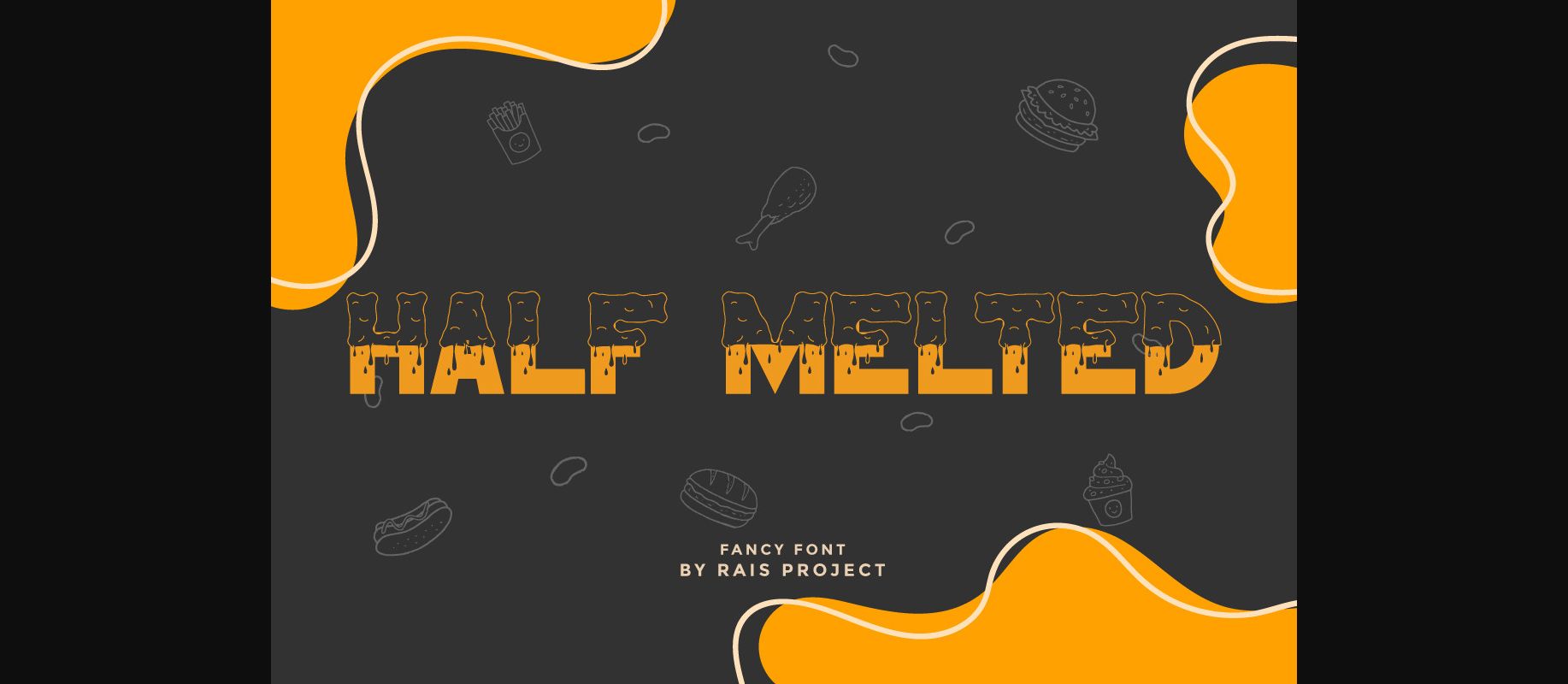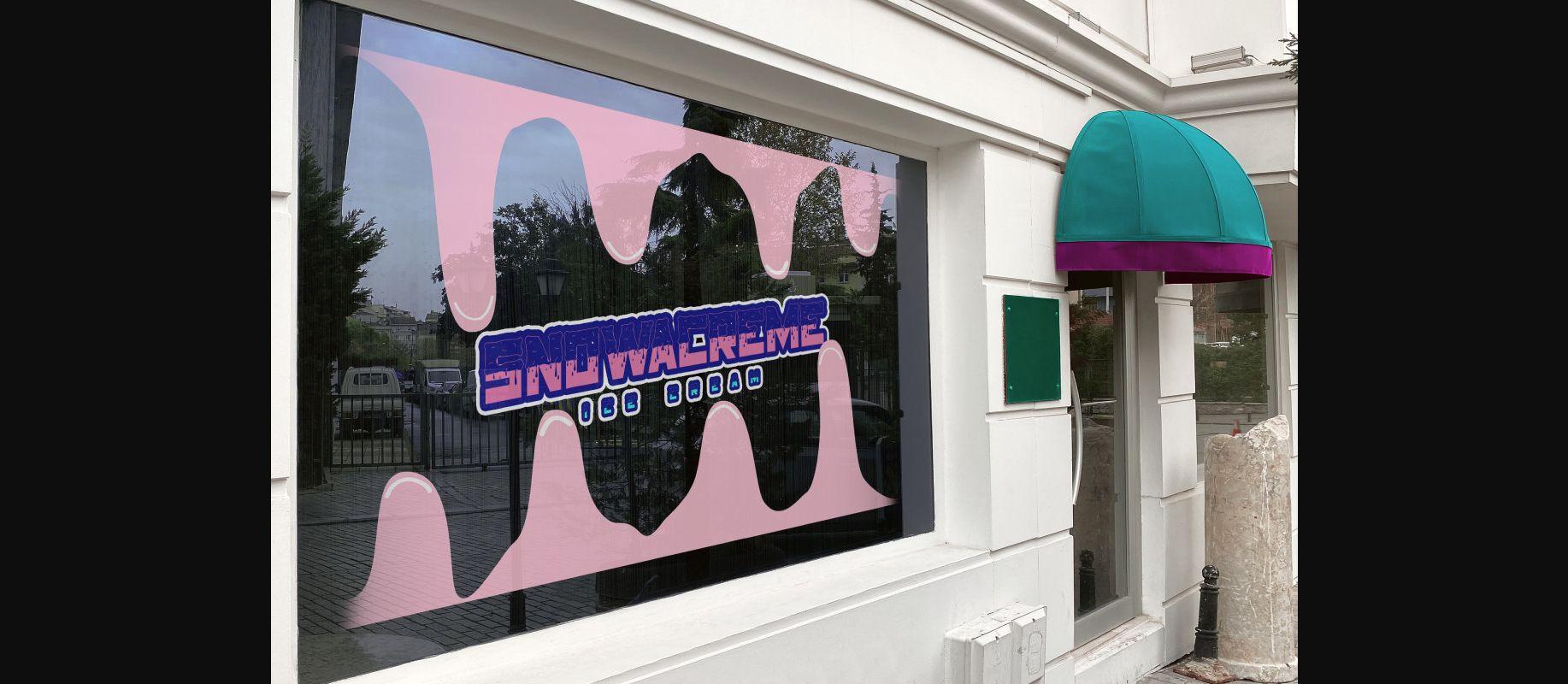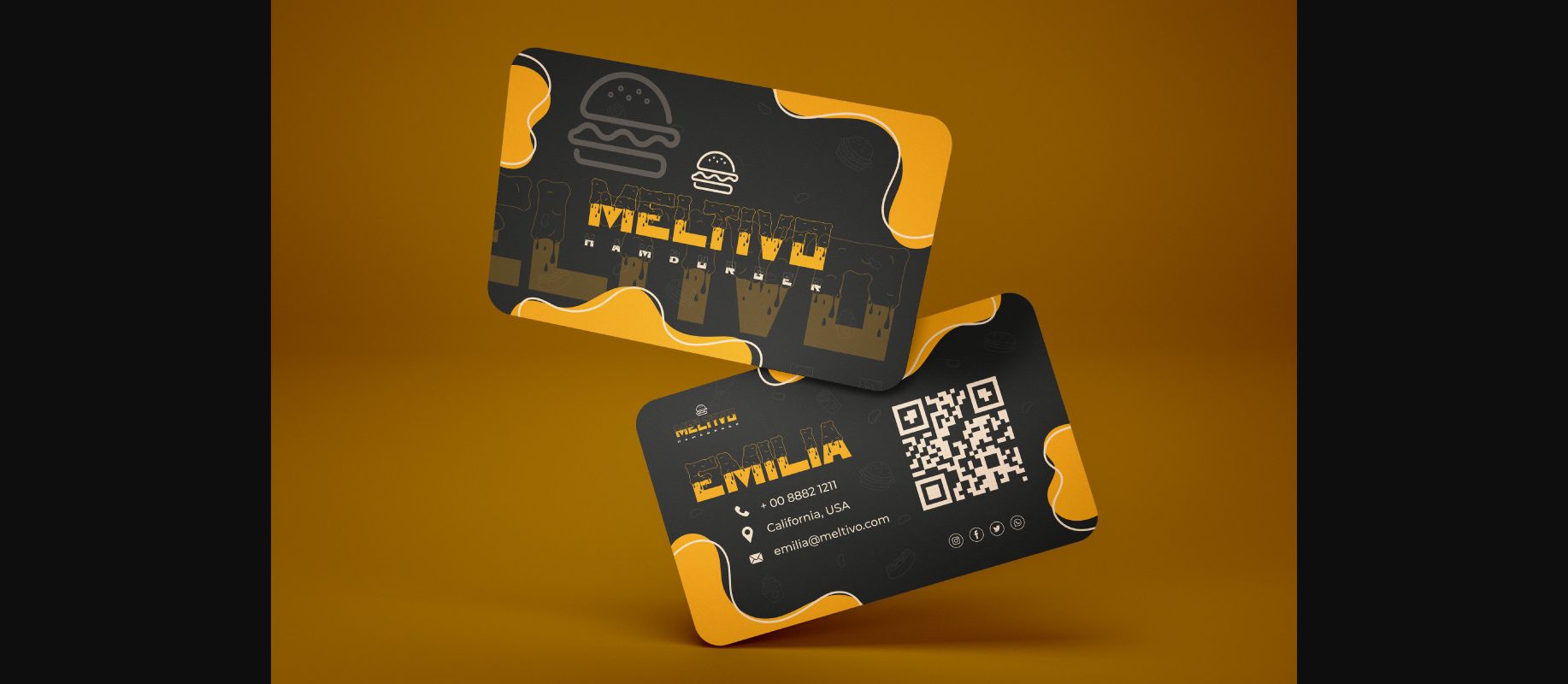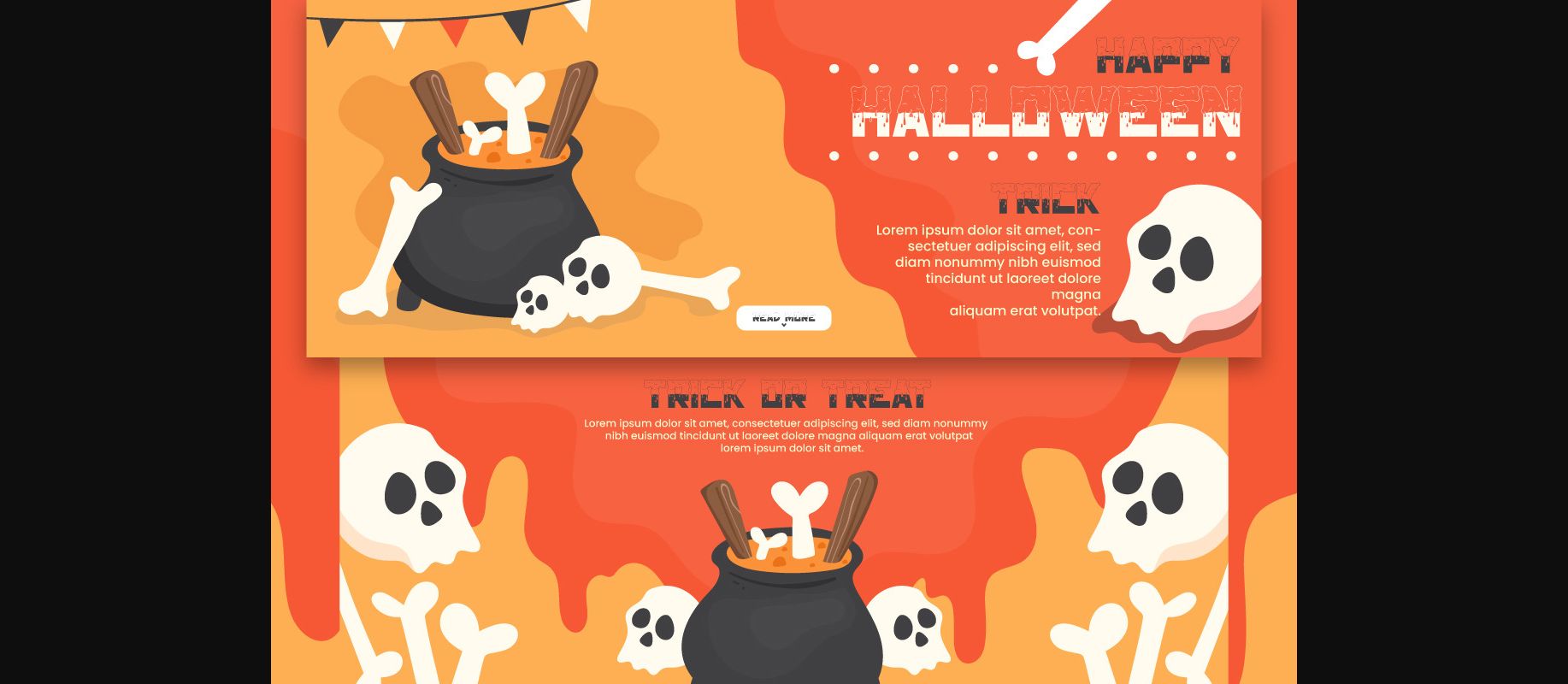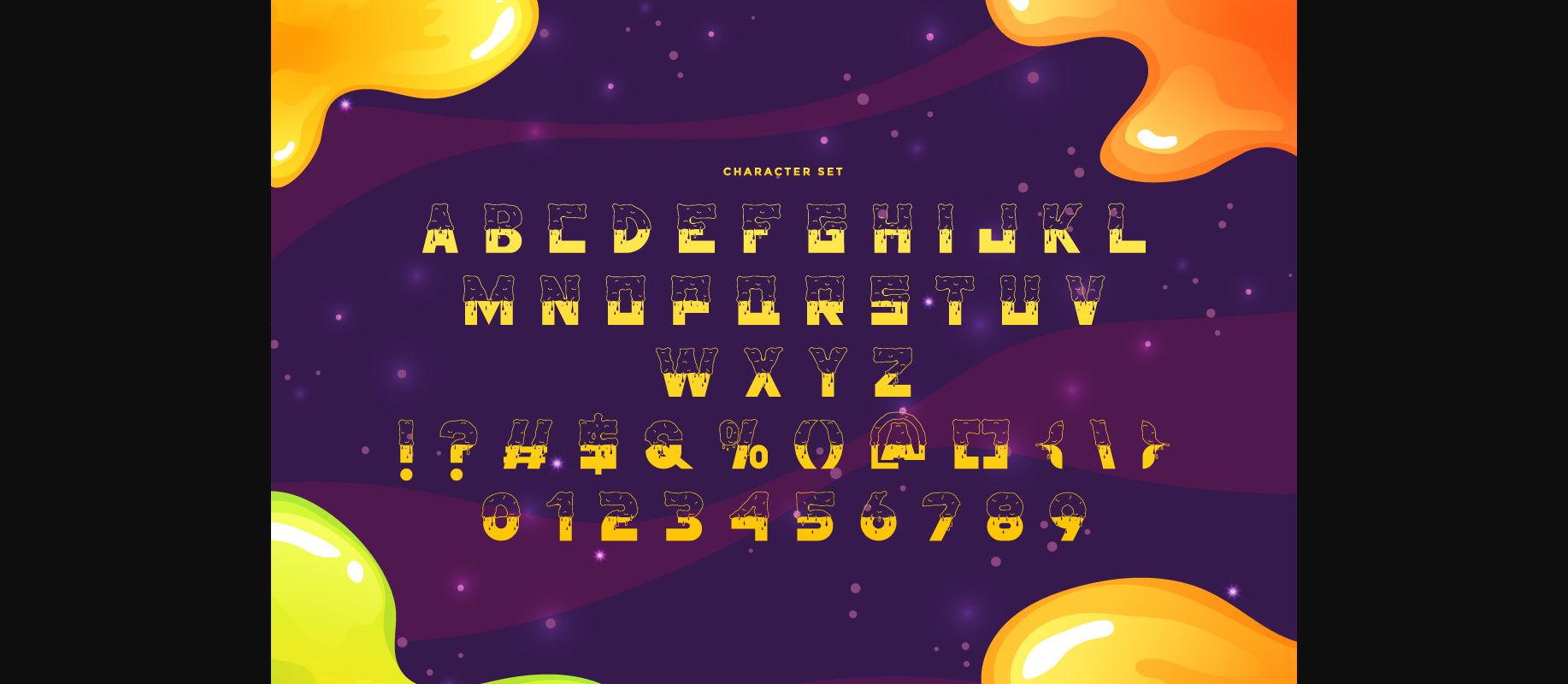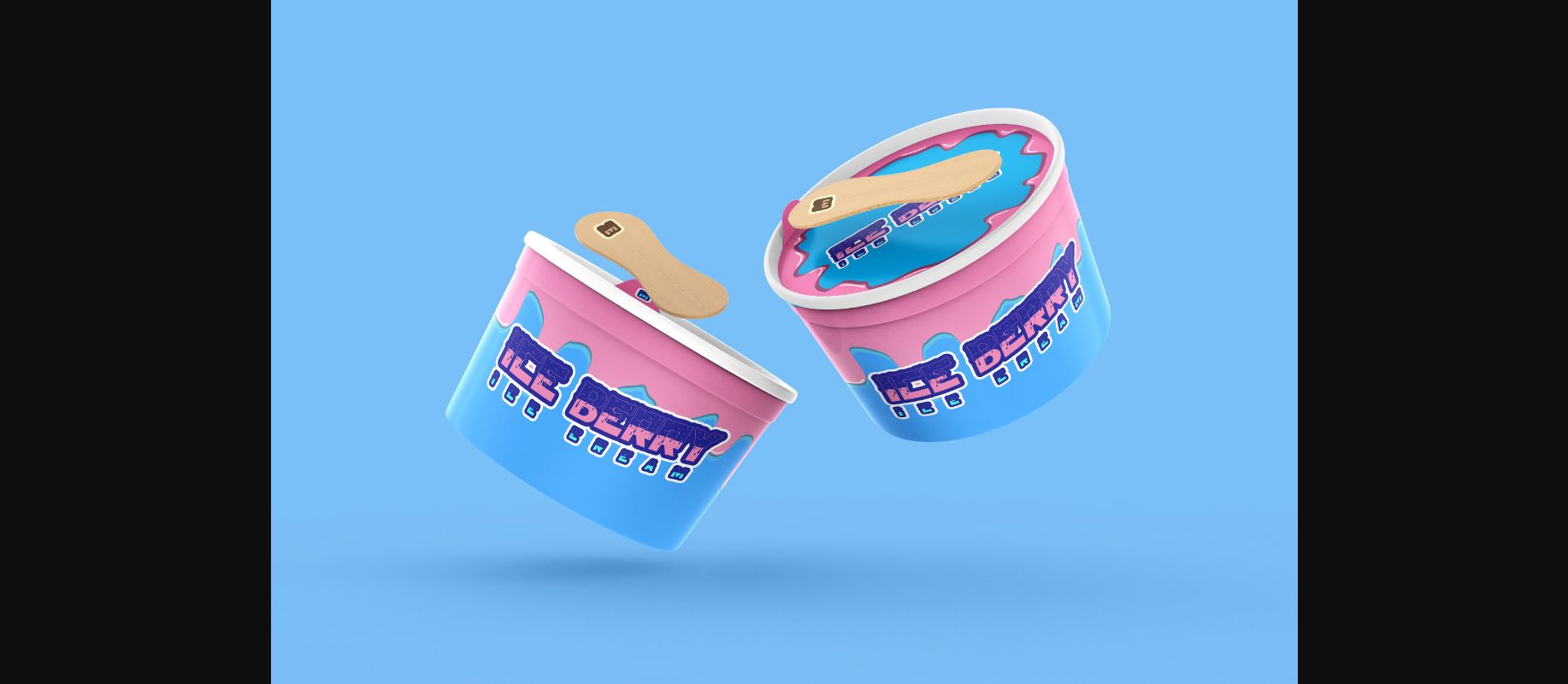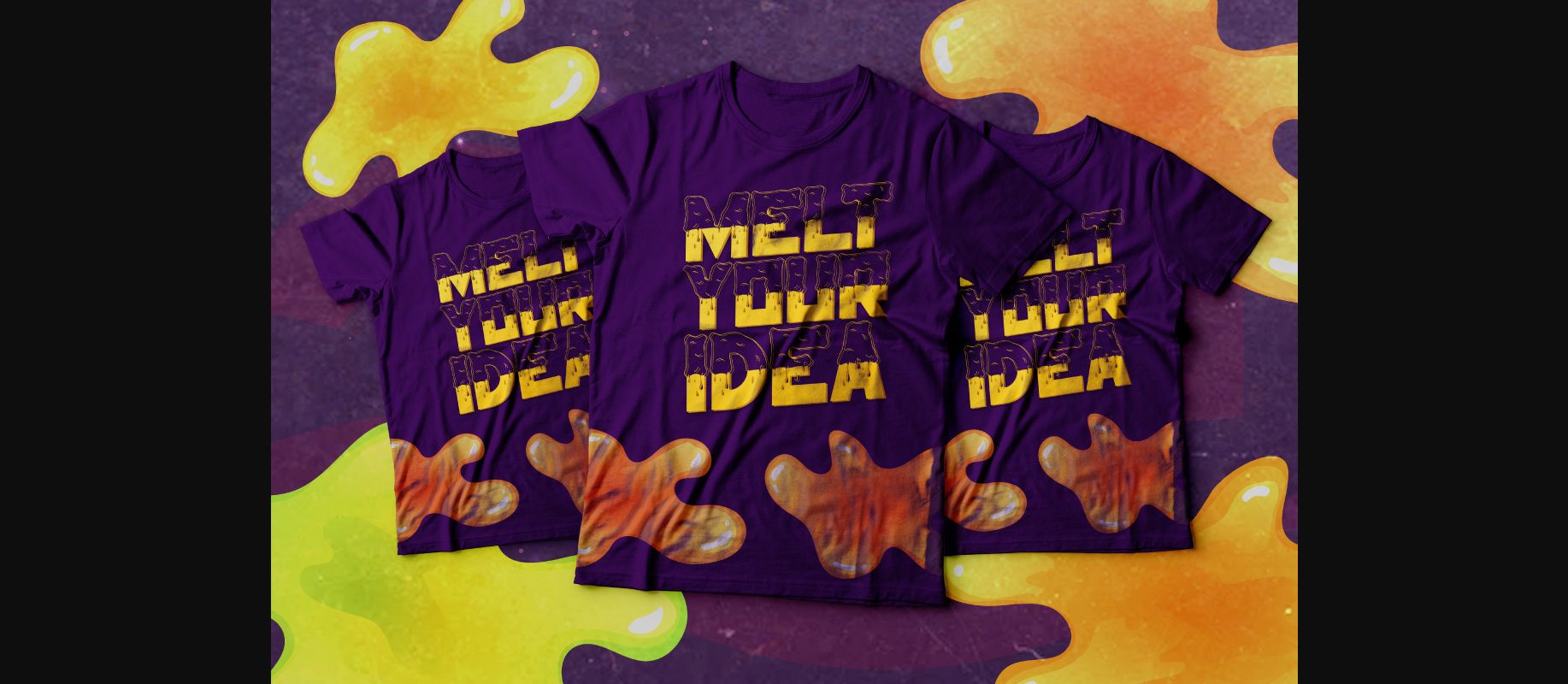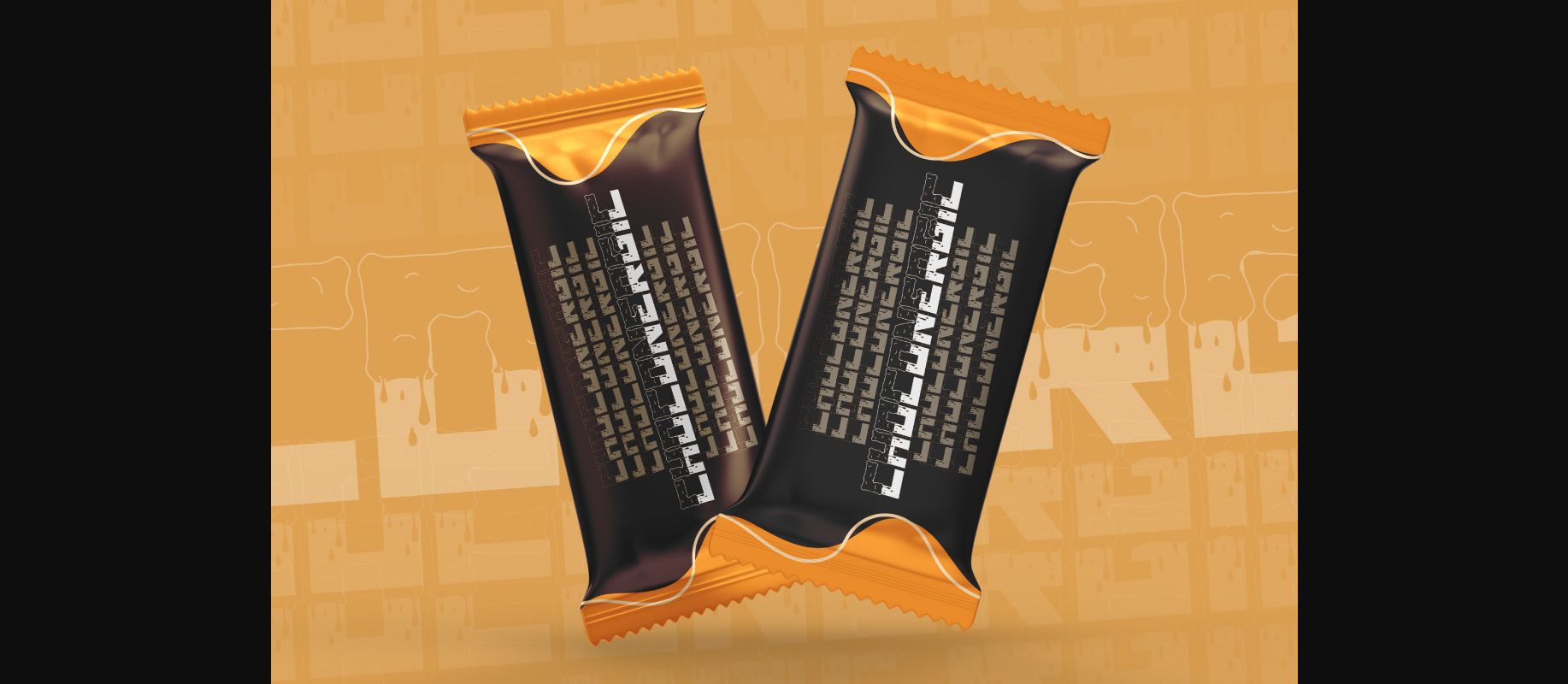
Half Melted is a cool and uniquely designed decorative font. It embodies playfulness and authenticity and is the perfect choice for any children activity or school project.